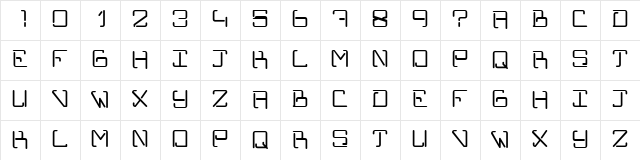
TYPORM01R Regular
Design Context for TYPORM01R Typeface
TYPORM01R is a composed and adaptable typeface that performs quietly and consistently across a wide range of design contexts.